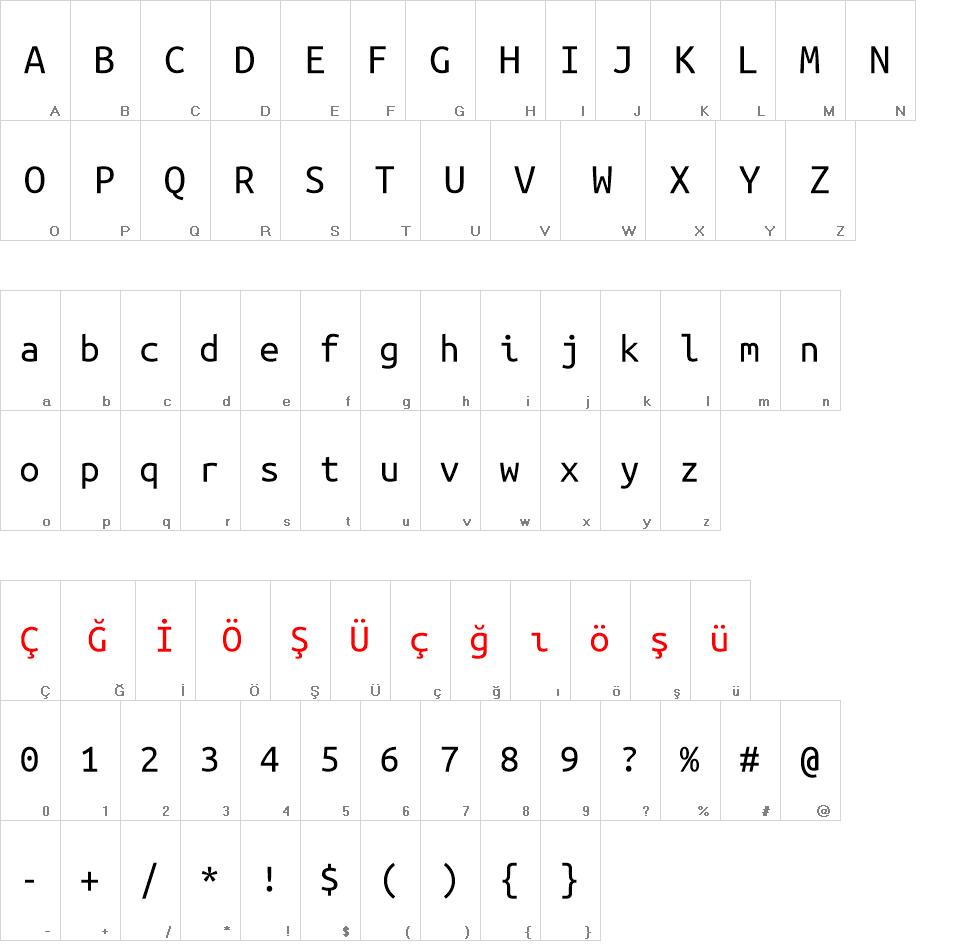
Ubuntu Mono font
The Ubuntu Font Family  are a set of matching new libre/open fonts in development during 2010-2011. The development is being funded by Canonical Ltd on behalf the wider Free Software community and the Ubuntu project. The technical font design work and implementation is being undertaken by Dalton Maag .
The new Ubuntu Font Family was started to enable the personality of Ubuntu to be seen and felt in every menu, button and dialog. The typeface is sans-serif, uses OpenType features and is manually hinted for clarity on desktop and mobile computing screens.
The scope of the Ubuntu Font Family includes all the languages used by the various Ubuntu users around the world in tune with Ubuntu's philosophy which states that every user should be able to use their software in the language of their choice. So the Ubuntu Font Family project will be extended to cover many more written languages.
Dalton Maag
Dalton Maag  is an international font foundry specializing in type design and digital font production. The company was founded by Swiss typographer Bruno Maag in 1991 and has grown over the past two decades to become one of the world’s most respected type foundries. With a multinational and multicultural team drawn from 18 nations, Dalton Maag’s clients span all industry sectors and include many of the world’s most-recognized brands.